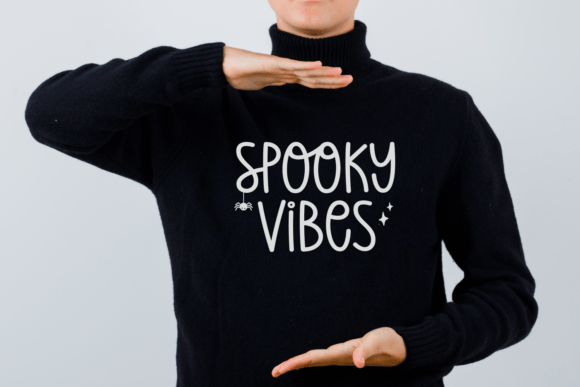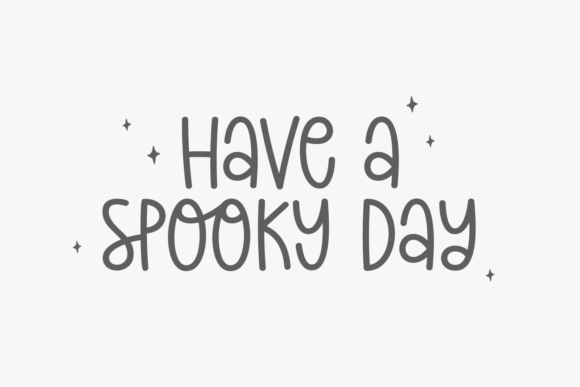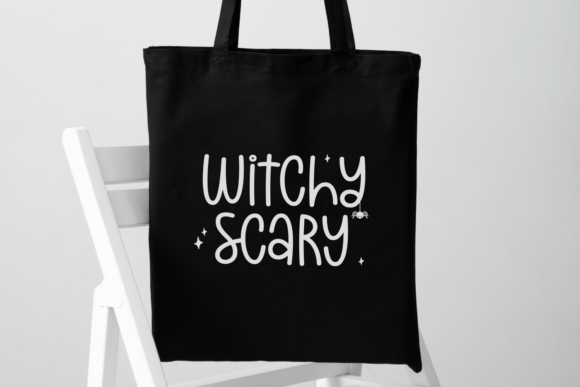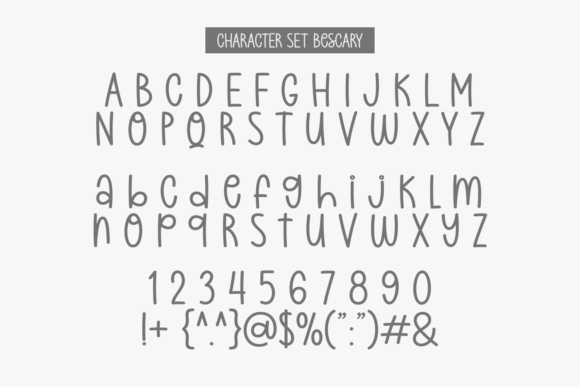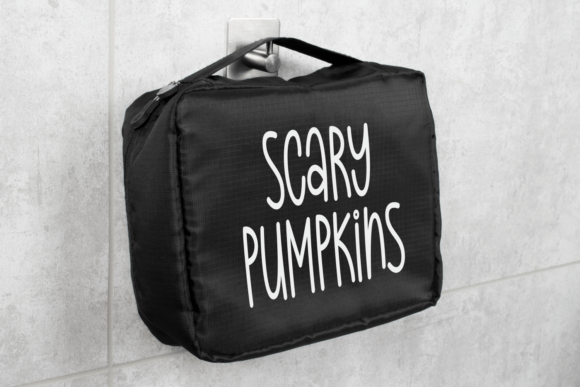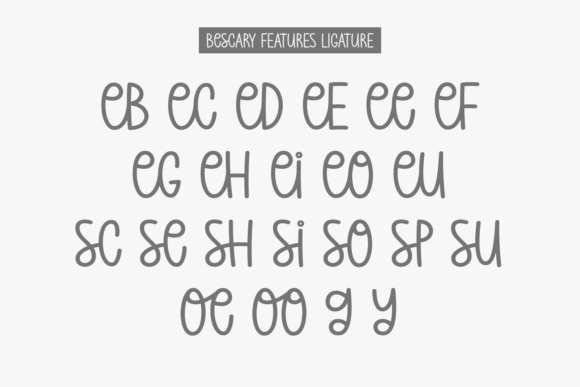
Discover the Enchanting Allure of Bescary: A Simple Monoline Halloween Font
As a designer, I’ve had my fair share of late nights scrolling through font libraries, searching for that perfect typeface to bring a project to life. But one evening, while working on a Halloween-themed design for a client, I stumbled upon Bescary – a seamlessly simple monoline Halloween font that instantly captivated me. Its unique blend of charming horror and joviality perfectly encapsulated the spirit of the season, and I knew I had found the perfect fit.
A Personal Review of Bescary
What I Love About Bescary ✨
• ✅ Effortless simplicity: Bescary’s clean lines and minimalist design make it a joy to work with, even for those new to design.
• 🎃 Spooky-chic aesthetic: This font perfectly captures the essence of Halloween, adding a touch of whimsy and fun to any design.
• 💻 Versatility: From t-shirt graphics to greeting cards, stickers, and thematic bags, Bescary is the perfect companion for any creative endeavor.
• 🔍 Ligature features: Bescary boasts an impressive set of convenient ligature features, allowing for captivating and unmatched design adventures.
While Bescary is an exceptional font, there are a few minor quirks to be aware of:
• 🤔 Limited character set: As a monoline font, Bescary’s character set may be limited compared to other typefaces.
The Backstory Behind Bescary
Bescary was designed with the intention of capturing the essence of Halloween in a simple, yet elegant way. The creator aimed to craft a font that would be both spooky and fun, making it perfect for a wide range of creative projects. While the true inspiration behind Bescary remains a mystery, it’s clear that this font was designed with the designer and crafter in mind.
Q: What is Bescary’s primary use case?
A: Bescary is primarily designed for Halloween-themed designs, but its versatility makes it suitable for various creative projects.
Q: Does Bescary support ligatures?
A: Yes, Bescary boasts an impressive set of convenient ligature features, allowing for captivating and unmatched design adventures.